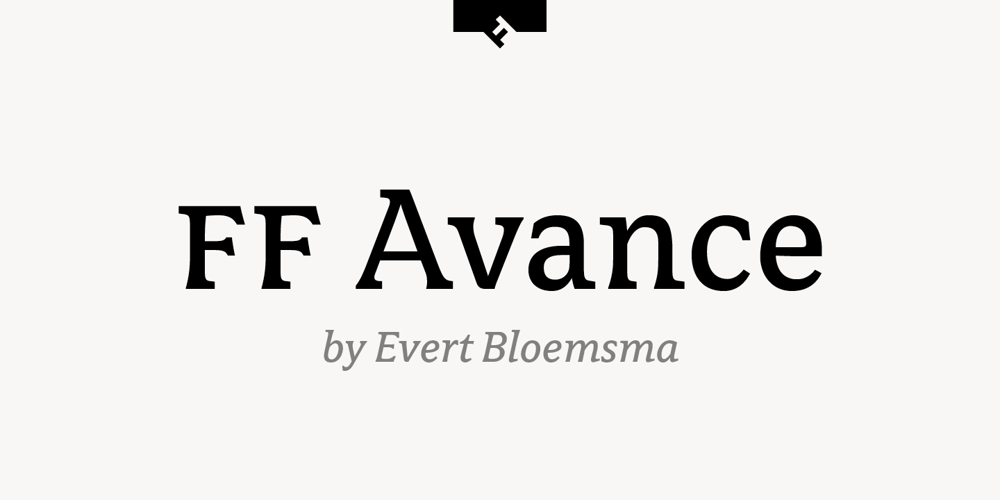
FF Avance Font Family was designed by Evert Bloemsma and published by FontFont. FF Avance contains 4 styles and family package options. Dutch type designer Evert Bloemsma created this serif FontFont in 2000. The family contains 4 weights: Regular, Italic, Bold, and Bold Italic and is ideally suited for book text, editorial and publishing, small text as well as web and screen design. FF Avance provides advanced typographical support with features such as ligatures, small capitals, alternate characters, case-sensitive forms, fractions, and super- and subscript characters. It comes with a complete range of figure set options – oldstyle and lining figures, each in tabular and proportional widths.